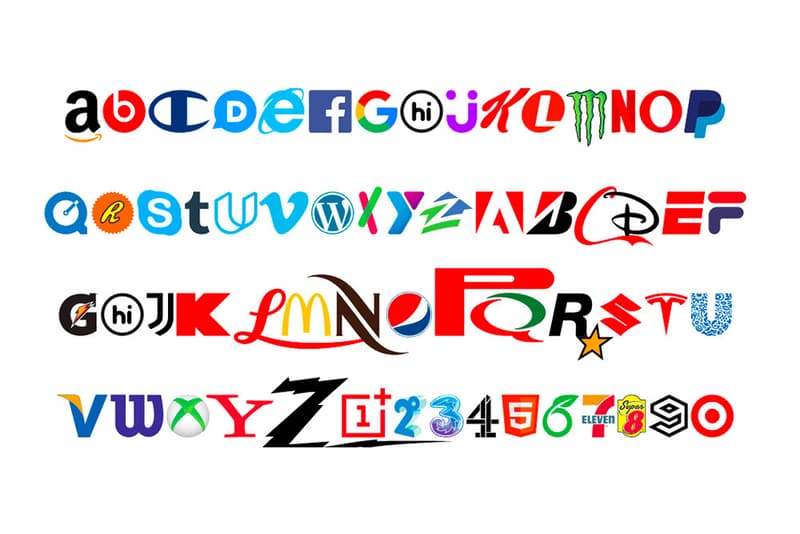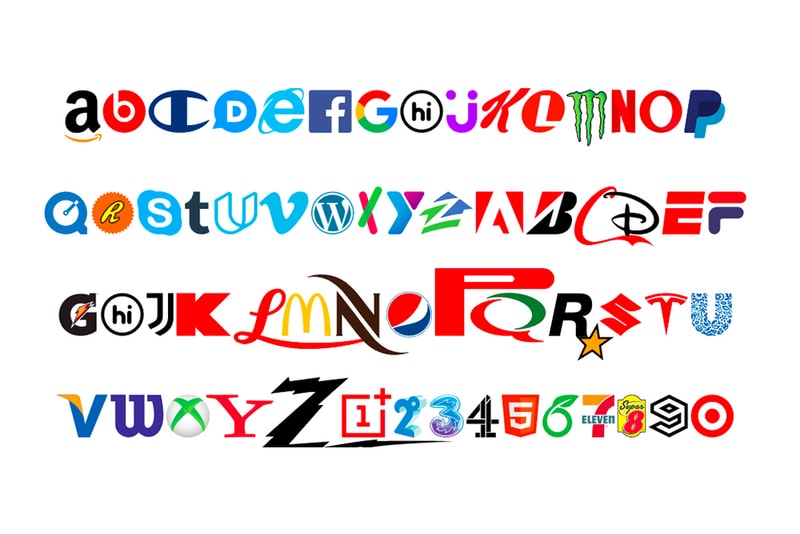
The Brand New Roman Font Serves as a Clever Statement on Consumerism
Utilizing the recognizable logos that surround us.
Looking to make a clever statement on the consumerism that surrounds us, digital studio Hello Velocity put together a typeface utilizing corporate company logos.
Brand New Roman font serves to bring what Hello Velocity is calling “thought-provoking internet experiences.” Installing the font as part of a Chrome or Firefox plugin, entire web pages are turned into functional commercials replacing text with a readable mashup of branding. Highlighting how ingrained companies are in our lives, the typeface is made up of 76 recognizable logos taken from household names like Amazon, Target, McDonald’s, Pepsi and more.